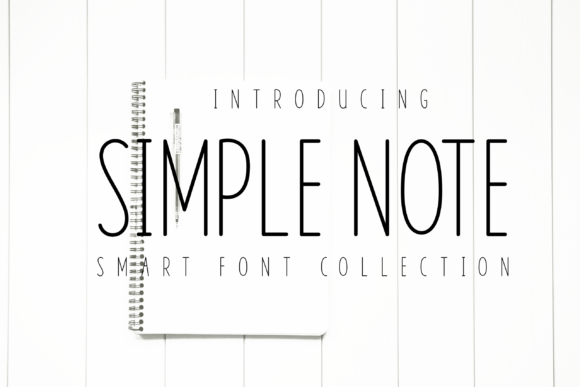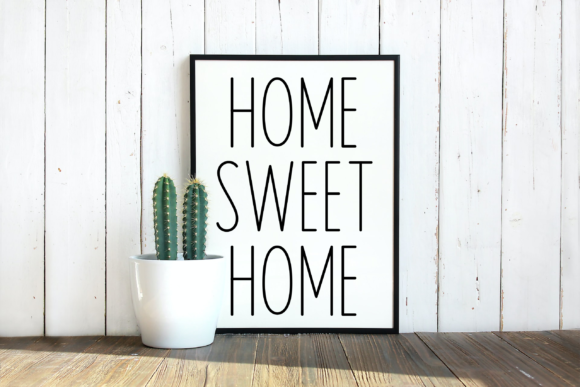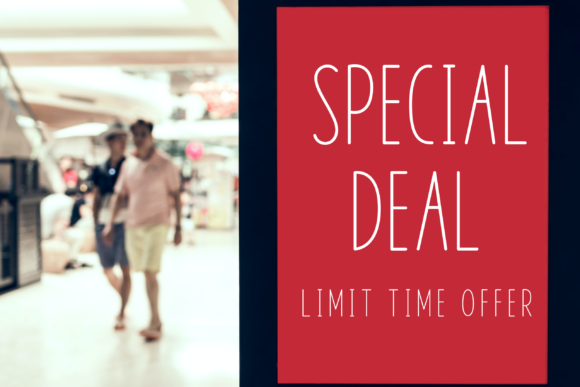
Simple Note Font
About the Simple Note Font
Explore the possibilities with Simple Note Font, a font that offers both beauty and functionality. Simple Note is a thin and tall sans serif font. It can easily be matched to an incredibly large set of projects, so add it to your creative ideas and notice how it makes them stand out!
Simple Note Font Usage Examples